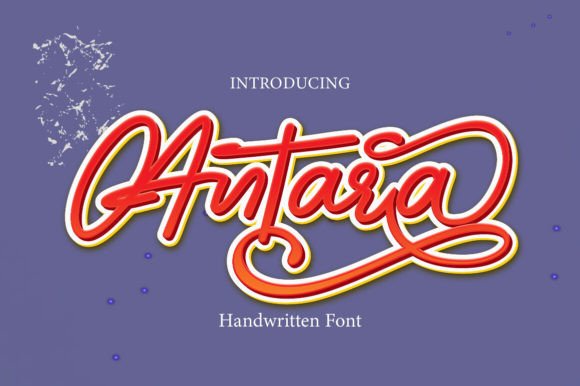
Introducing Antara Font: Your New Go-To for Creative Projects
I’ll never forget the struggle I faced while working on a wedding invitation project. My client wanted something elegant, yet modern, and I was on a tight deadline. As I scrolled through my font library, nothing seemed quite right – until I stumbled upon Antara Font. This handwritten font has been a game-changer for me, and I’m excited to share its awesomeness with you! 😊
A Personal Review of Antara Font
- 💕 Natural and modern look: Antara Font strikes the perfect balance between elegance and playfulness.
- ✅ Versatile: Use it for logos, branding, social media posts, or even movie titles – the possibilities are endless!
- 🎨 Highly customizable: With OpenType features and glyphs, you can easily add your personal touch.
- 👍 Easy to read: Despite its handwritten nature, Antara Font remains clear and legible.
While Antara Font is amazing, it’s not perfect. Here are a few things to keep in mind:
- 🤔 Limited use in very formal or traditional contexts – Antara Font shines in creative and modern projects.
- ⚠️ May require adjustments for longer texts, as its handwritten nature can be tiring to read in large blocks.
The Backstory Behind Antara Font
Antara Font was designed with creativity and versatility in mind. Its creator aimed to craft a font that would be both elegant and approachable – perfect for a wide range of projects. Inspired by the beauty of handwritten scripts, Antara Font brings a touch of personality to any design.
Q: What type of projects is Antara Font best suited for?
A: Antara Font is perfect for creative projects like logos, branding, invitations, social media posts, and more.
Q: Does Antara Font support OpenType features?
A: Yes, Antara Font supports OpenType features, allowing you to access a range of glyphs and stylistic alternates.